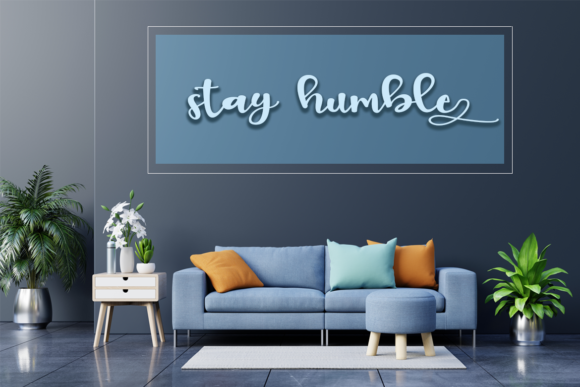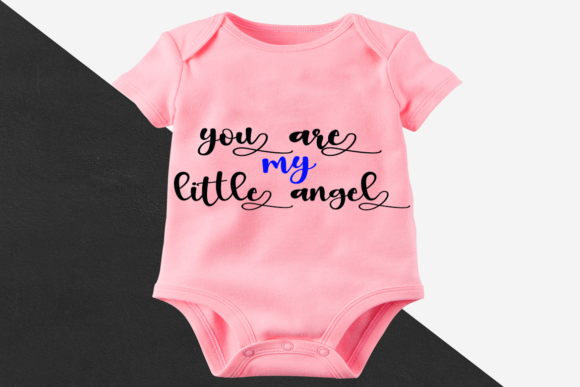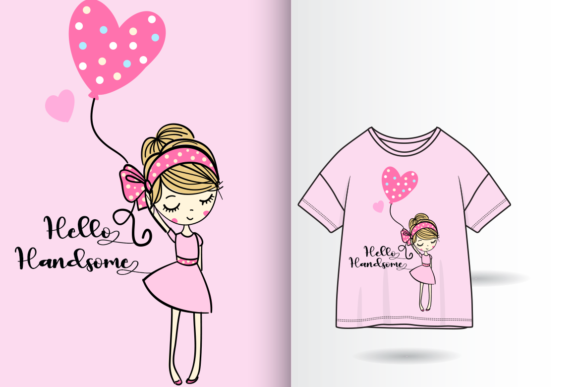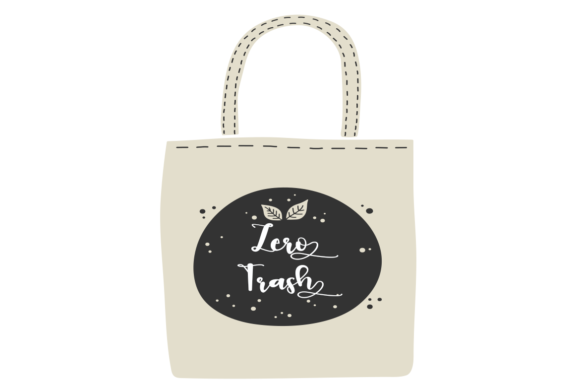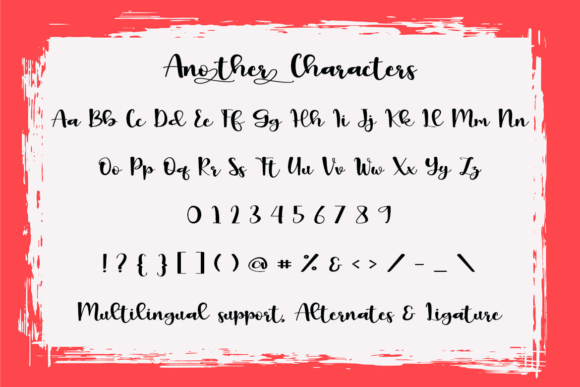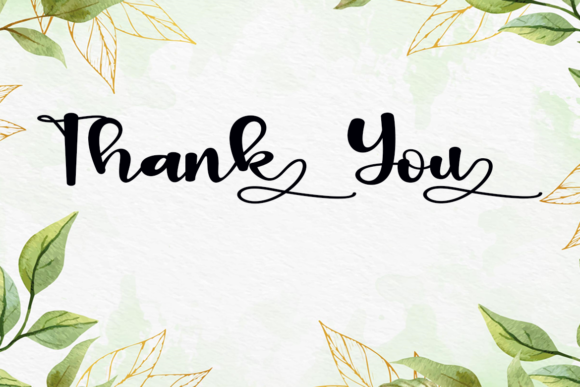
Discover the Elegance of Another Font: Elevate Your Designs with a Timeless Touch
In the realm of typography, few fonts manage to capture the essence of elegance and timelessness. However, “Another Font” stands out as a remarkable exception. Described as a flowing handwritten font with an elegant touch, Another Font is poised to become your go-to choice for a wide array of projects. Its distinct style is not just a fleeting trend but a classic approach to design that promises to leave a lasting impression.
The Distinctive Charm of Another Font
Another Font is more than just a collection of letters; it’s an experience. Its flowing lines and elegant curves bring a sense of sophistication and refinement to any design. Whether you’re working on a branding project, a wedding invitation, or a personal blog, Another Font offers the versatility to make your work stand out. Its unique charm lies in its ability to convey a sense of warmth and approachability, making it perfect for designers and crafters looking to add a personal touch to their creations.
Why Choose Another Font?
When it comes to selecting the right font for your project, the options can be overwhelming. However, Another Font offers several compelling reasons to make it your top choice:
- Elegant and Timeless: Unlike trendy fonts that may quickly become outdated, Another Font boasts a timeless quality that ensures your designs remain relevant for years to come.
- Versatility: Its flowing and elegant nature makes it suitable for a wide range of projects, from digital content to print materials.
- Distinctive Style: In a sea of generic fonts, Another Font offers a unique aesthetic that can help your designs stand out.
- Easy to Read: Despite its elegant and flowing nature, Another Font maintains a high level of readability, making it perfect for both headings and body text.
How to Use Another Font in Your Projects
- Pair it with Other Fonts: Experiment with pairing Another Font with complementary fonts to create visual interest and hierarchy in your designs.
- Adjust the Size and Weight: Play with different sizes and weights of Another Font to add depth and emphasis to your text.
- Use it for Headings and Subheadings: Take advantage of Another Font’s elegance by using it for headings and subheadings, adding a touch of sophistication to your content.
Another Font opens up a world of creative possibilities. Here are some project ideas to get you started:
- Wedding Invitations and Stationery: Add a touch of elegance to wedding invitations, save-the-date cards, and other stationery with Another Font.
- Branding and Logotypes: Use Another Font to create a distinctive brand identity that exudes sophistication and refinement.
- Blog and Website Design: Elevate your digital content with Another Font, making your blog or website stand out with its unique aesthetic.
- DIY Projects and Crafts: Incorporate Another Font into your DIY projects, such as handmade cards, journals, and other crafty endeavors.
Another Font is more than just a font; it’s a design statement. Its elegant touch and timeless style make it an invaluable asset for designers and crafters looking to elevate their projects. Whether you’re aiming for sophistication, elegance, or simply a unique aesthetic, Another Font is sure to exceed your expectations. So, fall in love with its distinct style and use it to create spectacular designs that leave a lasting impression.